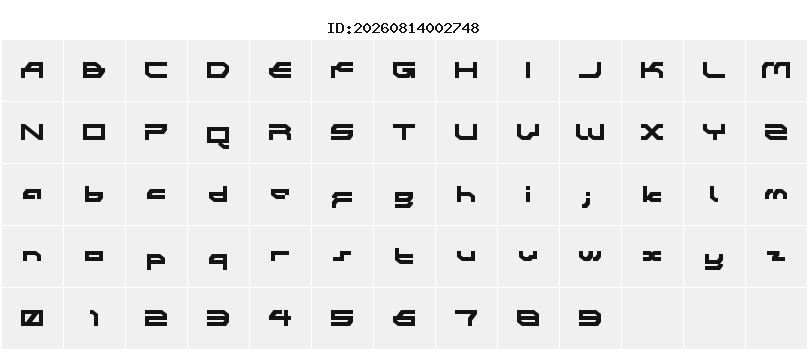
• Font Name: Synthek Regular LDR
• Designer: Neoqueto
• Manufacturer: Michał "Neoqueto" Nowak
About Synthek Regular LDR.ttf
Synthek Regular LDR.ttf is a modern, elegant sans-serif font designed for ultimate readability and visual harmony. Perfect for branding, headlines, web design, and print materials.